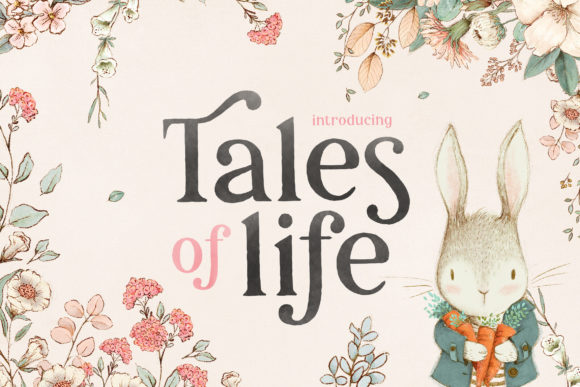
Looking for a stunning and elegant serif font to use in your next project? Look no further than Tales of Life Duo Font, created by Jupiter Studio. This font family is perfect for anyone looking to add a touch of sophistication to their designs, and it's especially perfect for cake topper cricut projects.
Tales of Life Duo Font includes both regular characters and a combination of regular and swirly characters, making it incredibly versatile and perfect for a wide range of projects. Use it for everything from wedding designs to save-the-date cards, invitations, children's books, cover design, book titles, wall art, quotes, business cards, and branding.
One of the great things about Tales of Life Duo Font is that it's incredibly easy to use. The font is designed to be user-friendly and accessible, even for those who are new to graphic design or typography. With its clean lines and elegant curves, it's sure to make any project look professional and polished.
So why should you choose Tales of Life Duo Font over other serif fonts on the market? For one, it's incredibly eye-catching and attention-grabbing. The swirly characters add an element of whimsy and playfulness that's sure to capture the attention of anyone who sees it.
But more than that, Tales of Life Duo Font is perfect for anyone who wants to add a touch of elegance and sophistication to their designs. Whether you're creating a wedding invitation or designing a business card, this font is sure to elevate your project to the next level.